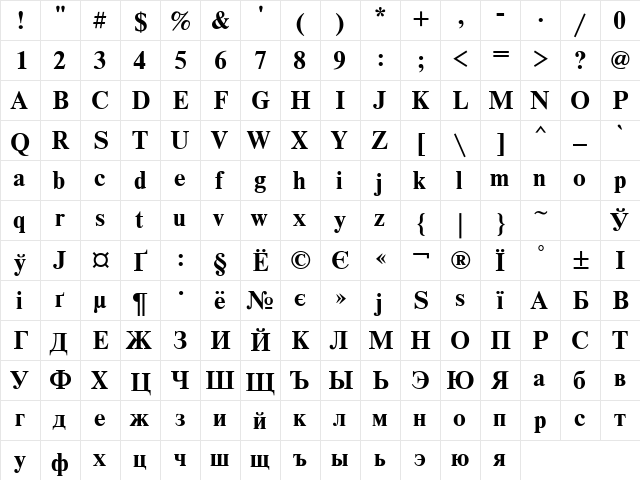
Newton Bold
Design Context for Newton Typeface
Newton takes a measured approach to typography — its balanced proportions and neutral character make it a reliable workhorse for both digital and print work. Its bold stroke weight gives it real presence on the page.